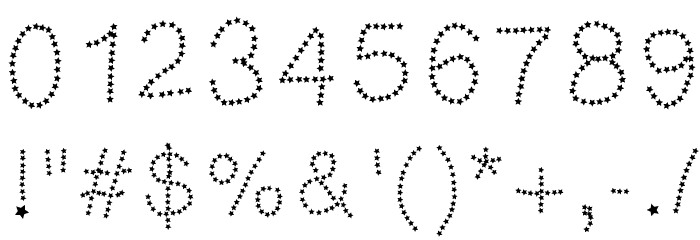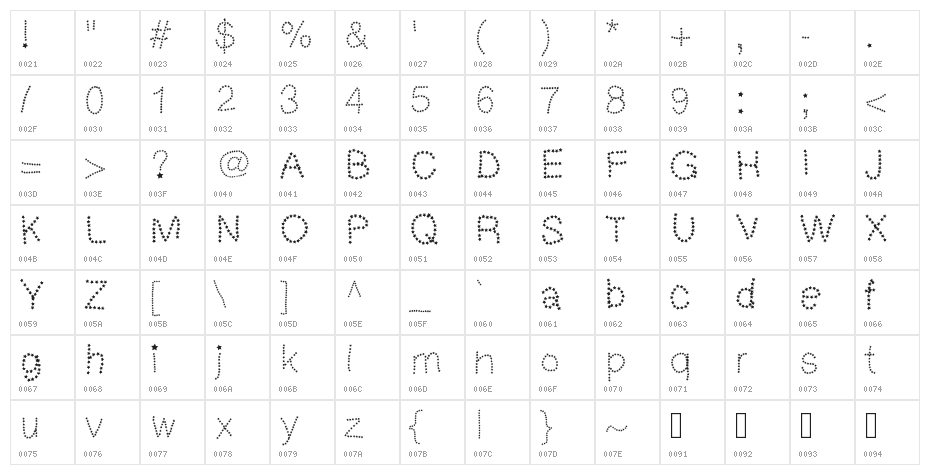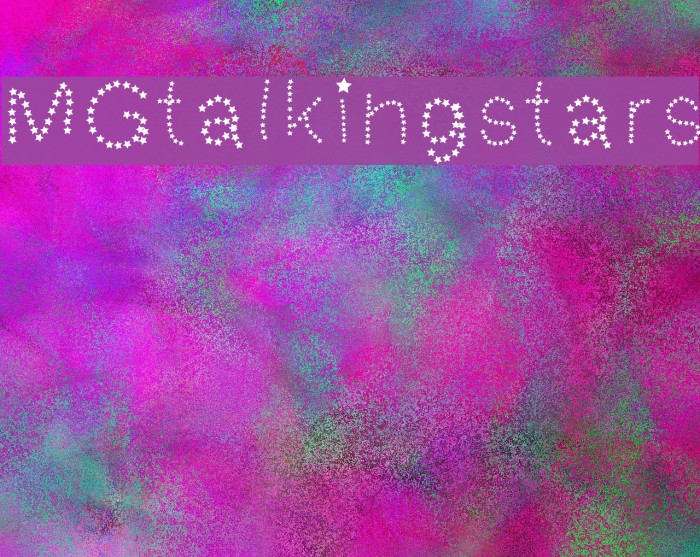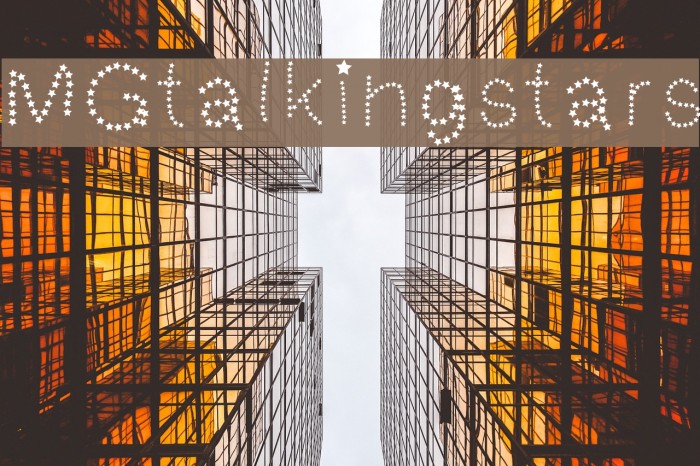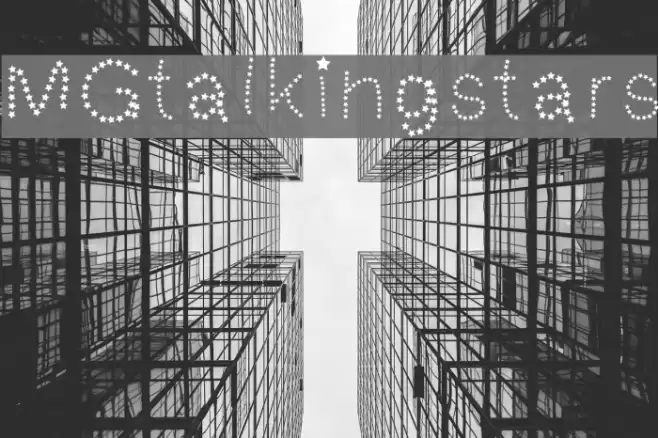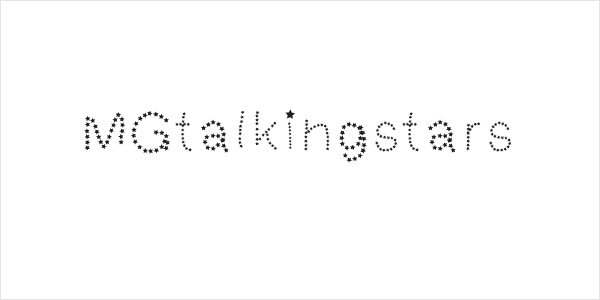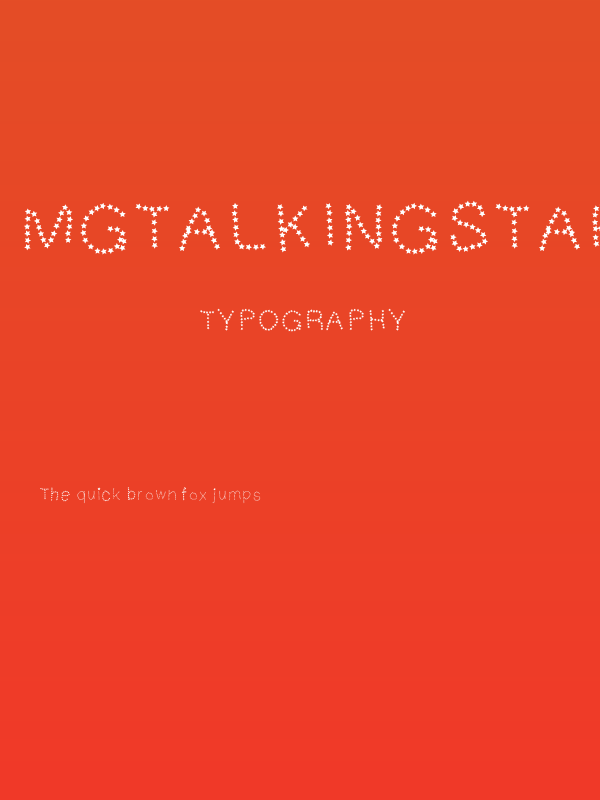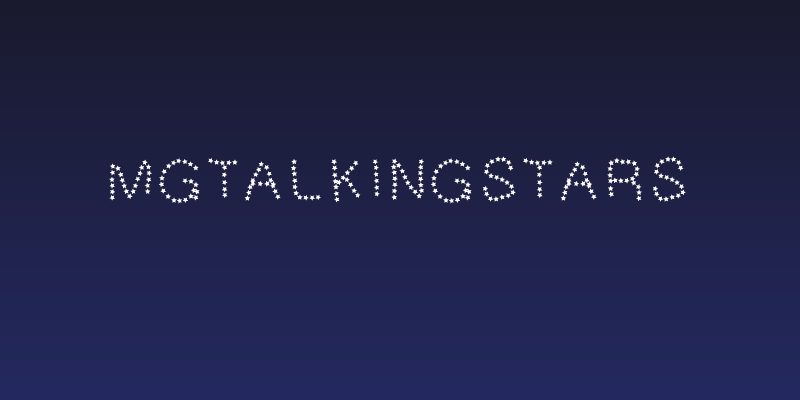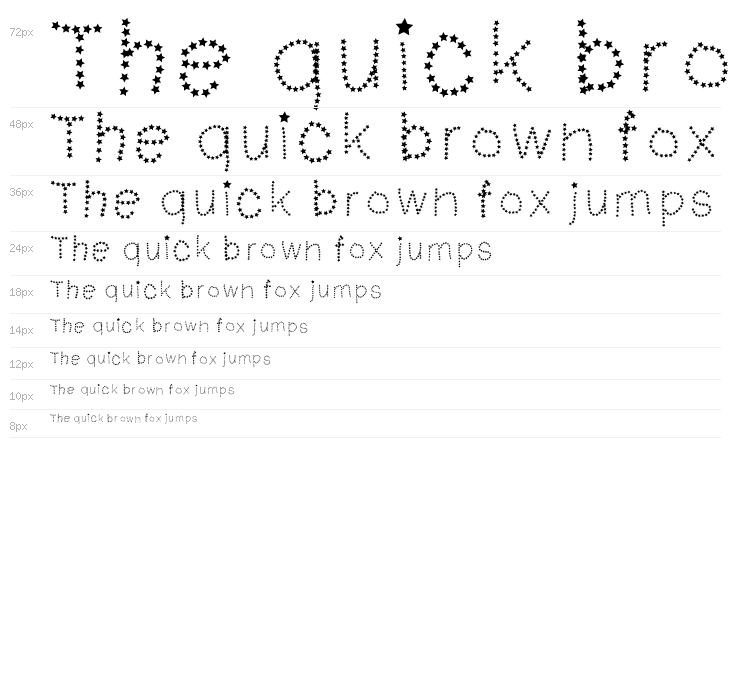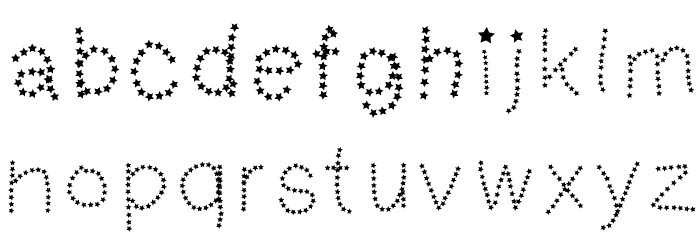
MGtalkingstars Font
MGtalkingstars Description
This decorative font is composed entirely of small star shapes forming each character, giving it a playful and whimsical appearance. The stars are evenly distributed, creating a consistent texture across all letters and numbers. The uppercase and lowercase letters maintain a uniform style, with rounded edges and a balanced structure. The numbers and special characters follow the same starry pattern, ensuring cohesion throughout the set. This font is ideal for creative projects that require a touch of fun and imagination, such as children's books, party invitations, or festive event promotions.
| Proposed Projects | Ideal for children's books, party invitations, festive event promotions, and creative design projects. |